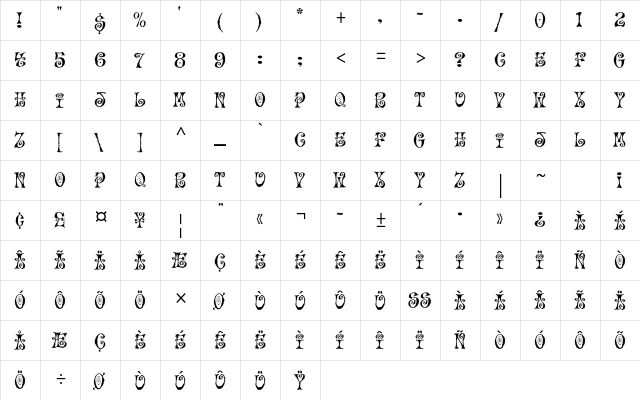
Mo Funky Fresh Std Regular
| Designer | David Sagorski |
Design Context for Mo Funky Fresh Std Typeface
Mo Funky Fresh Std has an approachable, lighthearted character — its loose, expressive forms are well-suited to children's content, casual branding, and fun-first design.
Font Pairing: Pairs well with a rounded or humanist sans for body copy, maintaining the friendly tone without relying on Mo Funky Fresh Std to carry extended reading.
Pro Tip: Avoid using Mo Funky Fresh Std for long passages of text — it works best for headlines, labels, and short calls to action.